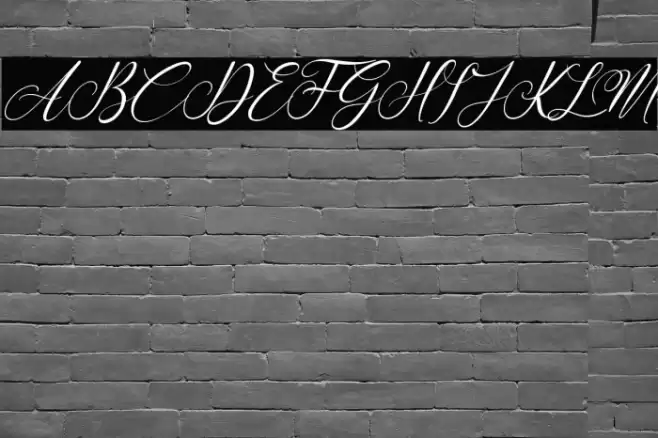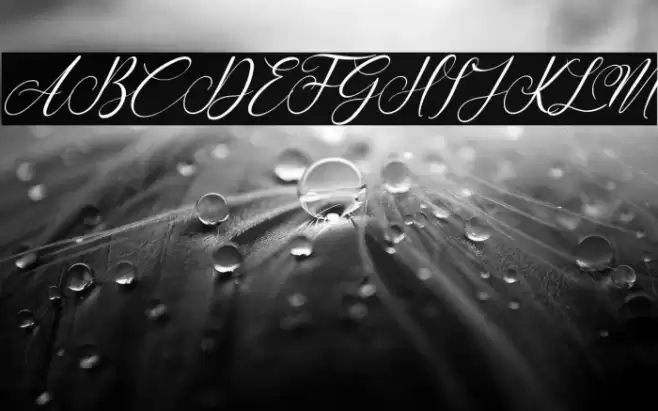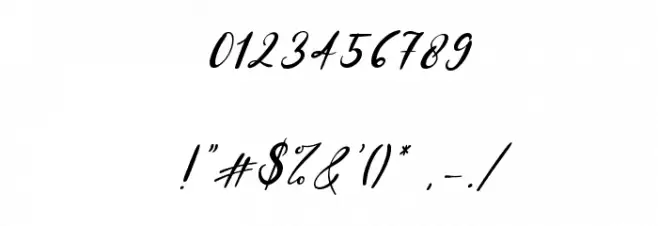
Simply Sugary Italic Font
Simply Sugary Italic Description
This font exudes elegance and sophistication with its flowing, cursive style. The characters are intricately designed with smooth, sweeping curves and delicate loops, giving it a handwritten appearance. The uppercase letters are particularly ornate, featuring extended flourishes that add a touch of drama and flair. The lowercase letters maintain a consistent style, complementing the uppercase with their graceful, fluid lines. The numerals and special characters are equally well-crafted, ensuring a cohesive look across all text. This font is perfect for projects that require a touch of class and elegance.
An elegant, cursive font with flowing, ornate characters from Uncategorized fonts.
- Proposed Projects: Ideal for wedding invitations, elegant branding, luxury product packaging, and personal stationery.
- Overall Style: Elegant, Decorative
- Use Case: Logos, Invitations, Decorative text